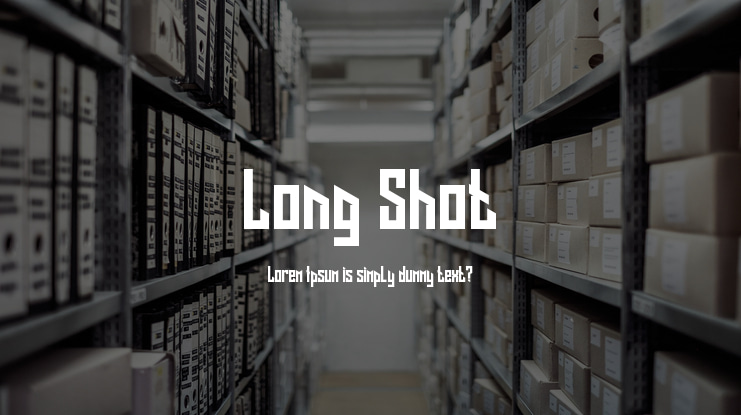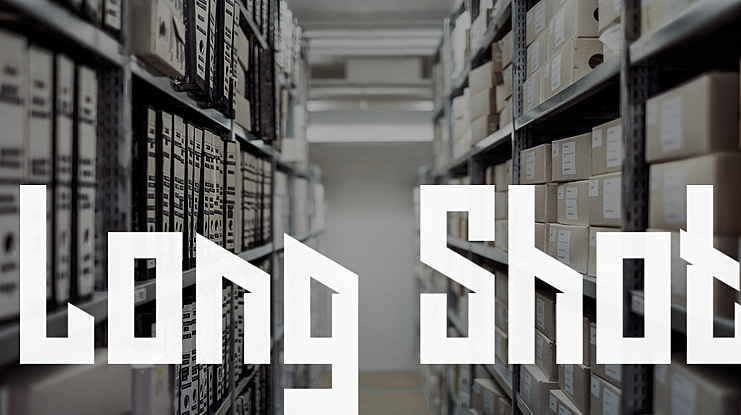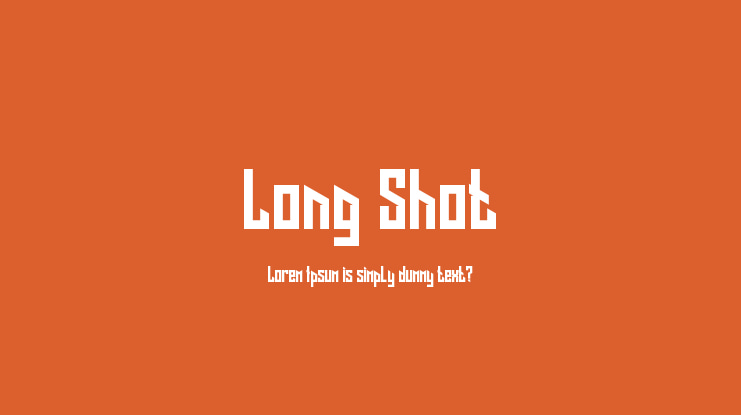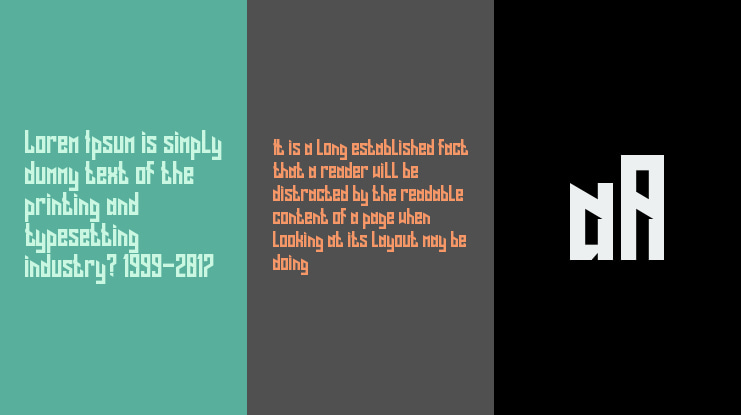
Long Shot Font
Long Shot is a deadly new new display typeface with a bold, distinctive design. Designed for titles, headers, banners etc. The font includes uppercase, lowercase, numbers, and punctuation.